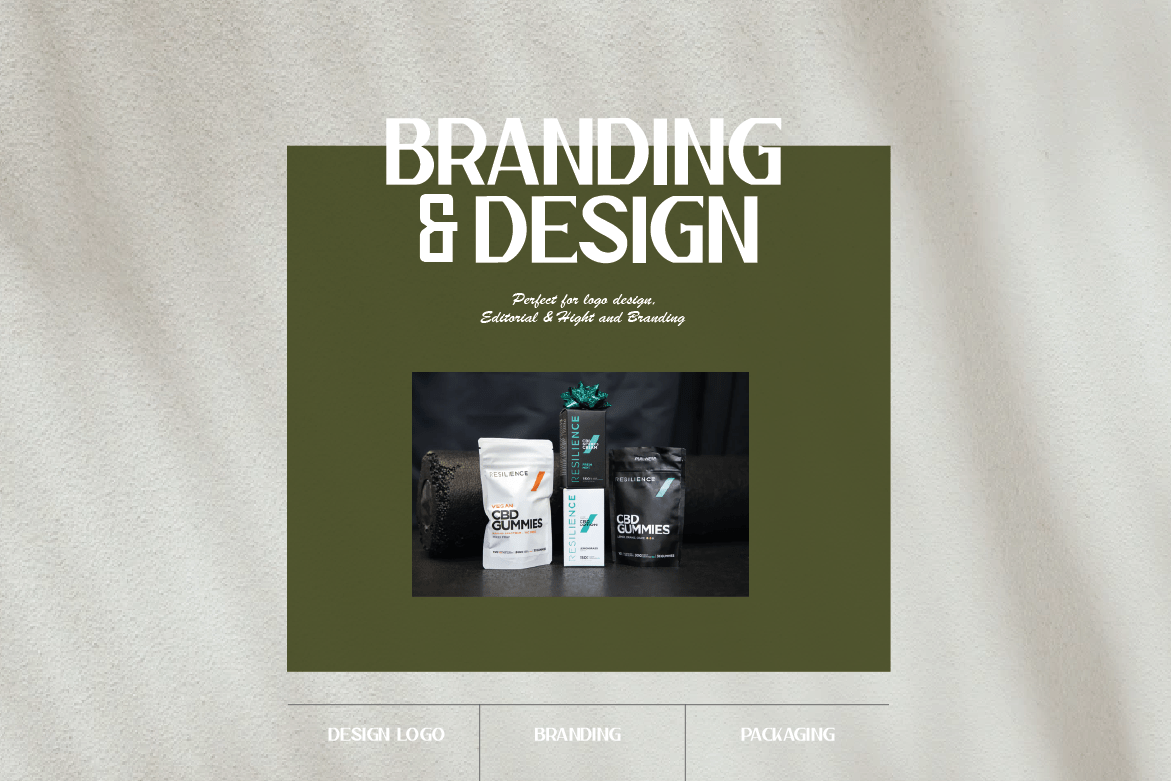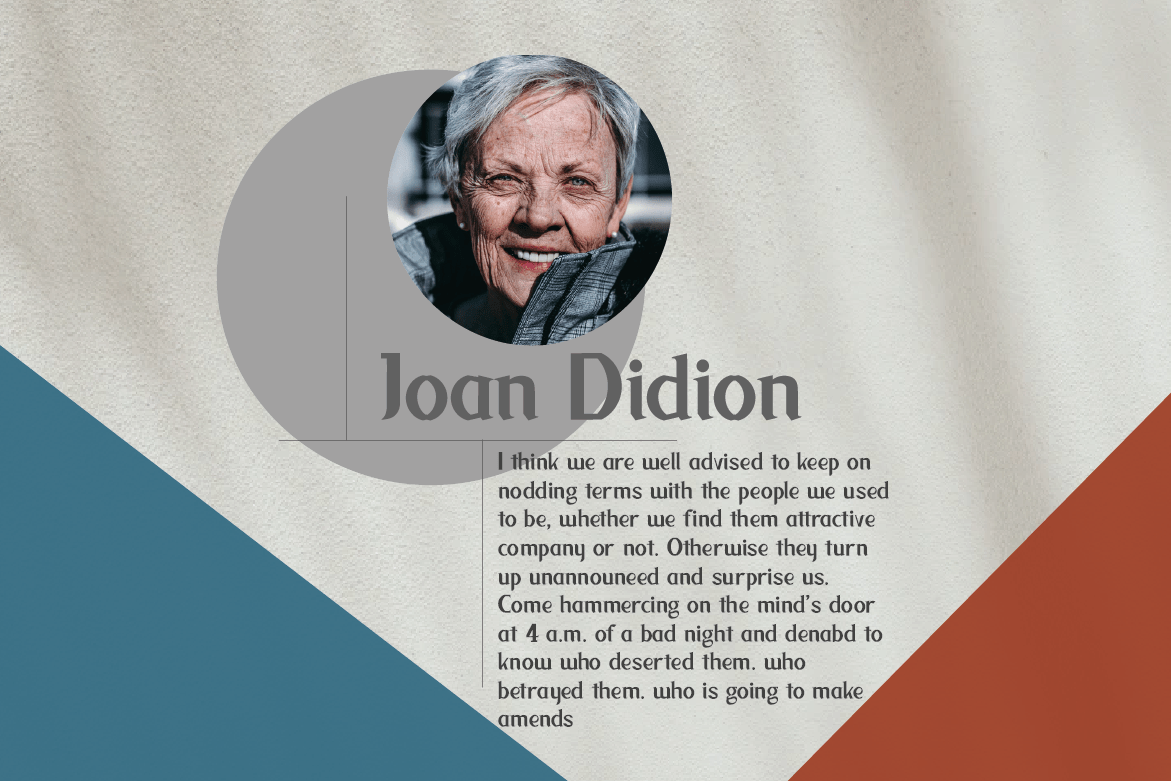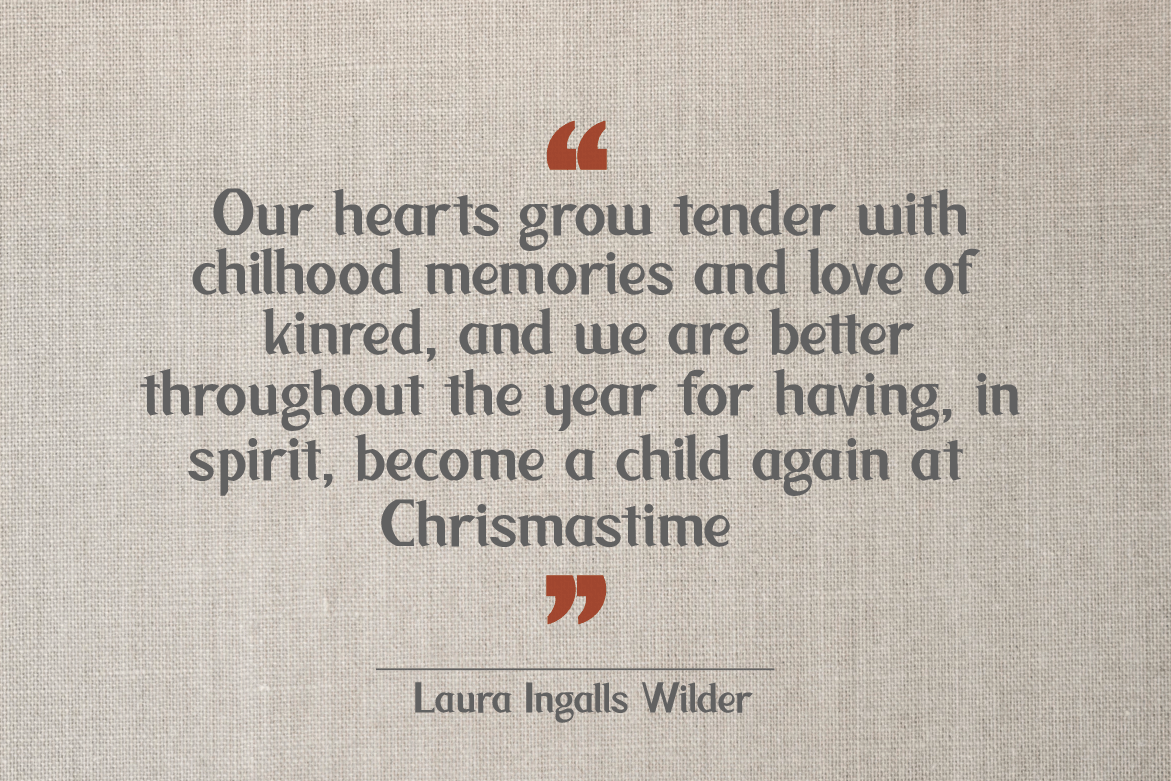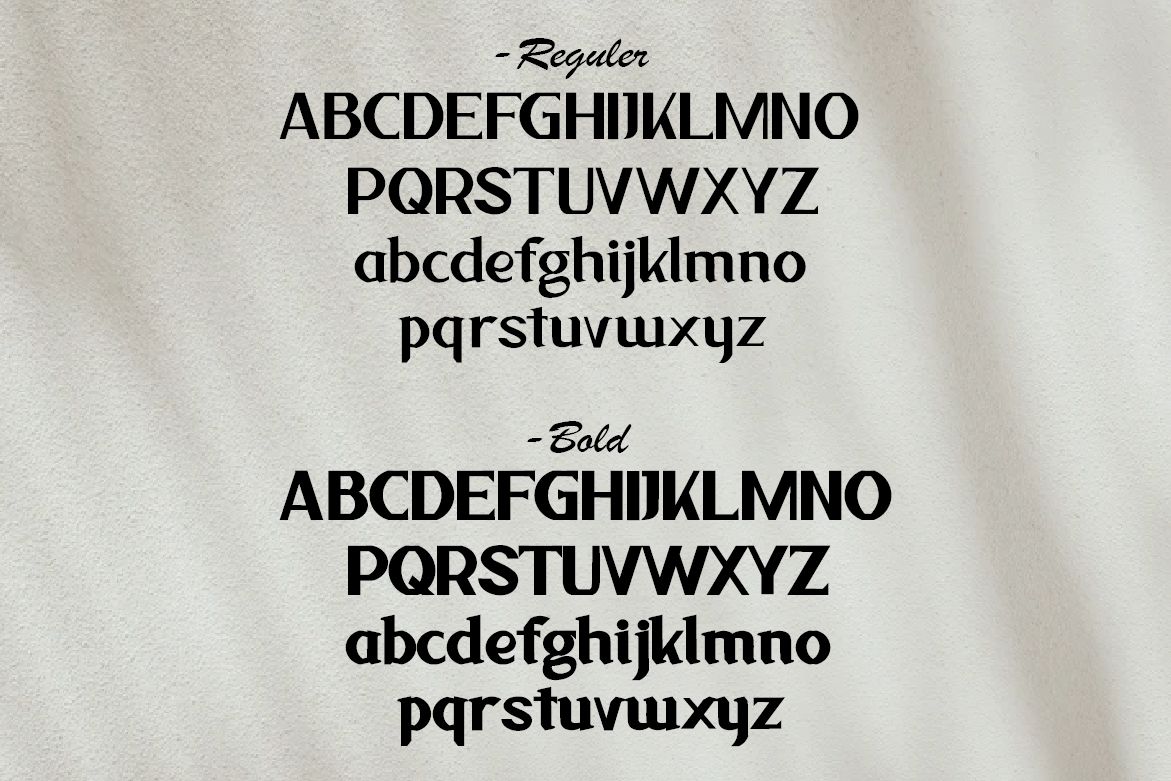
Jugful Font
Jugful Serif Font
This is an elegant and clean sans serif font. It’s a versatile font family designed for strong, classic branding. Gantic is perfect for any branding, logos, magazines, videos, weddings, quotes, print, product packaging, website, clothing designs and much more